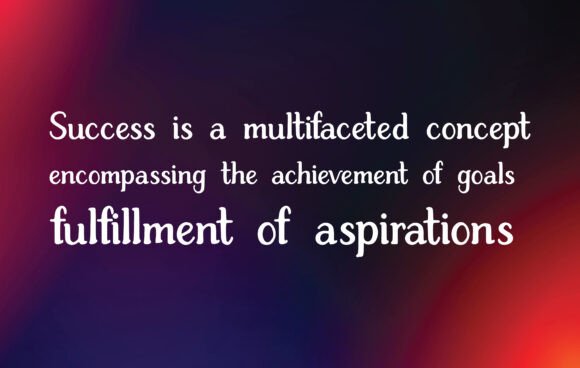
Discover the Beauty of Harlem Font: Elevate Your Designs with this Stunning Handwritten Font
Are you tired of using the same old fonts for your designs? Look no further than the Harlem Font, a lovely and beautiful handwritten font that has the potential to take your creative ideas to the highest level. With its unique and elegant style, Harlem Font is the perfect choice for creating eye-catching logos, branding, and quotes that will leave a lasting impression on your audience.
What Makes Harlem Font So Special?
Harlem Font is a carefully crafted handwritten font that exudes a sense of sophistication and style. Its flowing lines and delicate curves give it a distinctive look that is both modern and timeless. Whether you’re designing a logo, creating a brand identity, or crafting a quote, Harlem Font is the perfect choice for adding a touch of elegance and refinement to your work.
Key Features of Harlem Font
- Unique and Elegant Style: Harlem Font has a distinctive handwritten style that sets it apart from other fonts.
- Highly Versatile: Harlem Font can be used for a wide range of design projects, from logos and branding to quotes and more.
- Easily Readable: Despite its elegant style, Harlem Font is highly readable, making it perfect for use in both digital and print designs.
- Scalable: Harlem Font is designed to look great at any size, from small captions to large headings.
How to Use Harlem Font in Your Designs
Harlem Font is incredibly easy to use and can be incorporated into your designs in a variety of ways. Here are a few ideas to get you started:
- Logos and Branding: Use Harlem Font to create a unique and memorable logo or brand identity that will help you stand out from the competition.
- Quotes and Typography: Add a touch of elegance to your quotes and typography with Harlem Font.
- Digital and Print Designs: Harlem Font can be used in both digital and print designs, making it a versatile addition to your font library.
Why Choose Harlem Font?
With so many fonts to choose from, why should you choose Harlem Font? Here are just a few reasons:
- Unique Style: Harlem Font has a distinctive style that will help your designs stand out from the crowd.
- Elegant and Refined: Harlem Font adds a touch of elegance and refinement to any design.
- Highly Versatile: Harlem Font can be used for a wide range of design projects.
In conclusion, Harlem Font is a beautiful and elegant handwritten font that has the potential to take your creative ideas to the highest level. With its unique style, versatility, and readability, Harlem Font is the perfect choice for designers and crafters looking to add a touch of sophistication to their designs. So why wait? Download Harlem Font today and start elevating your designs to new heights!